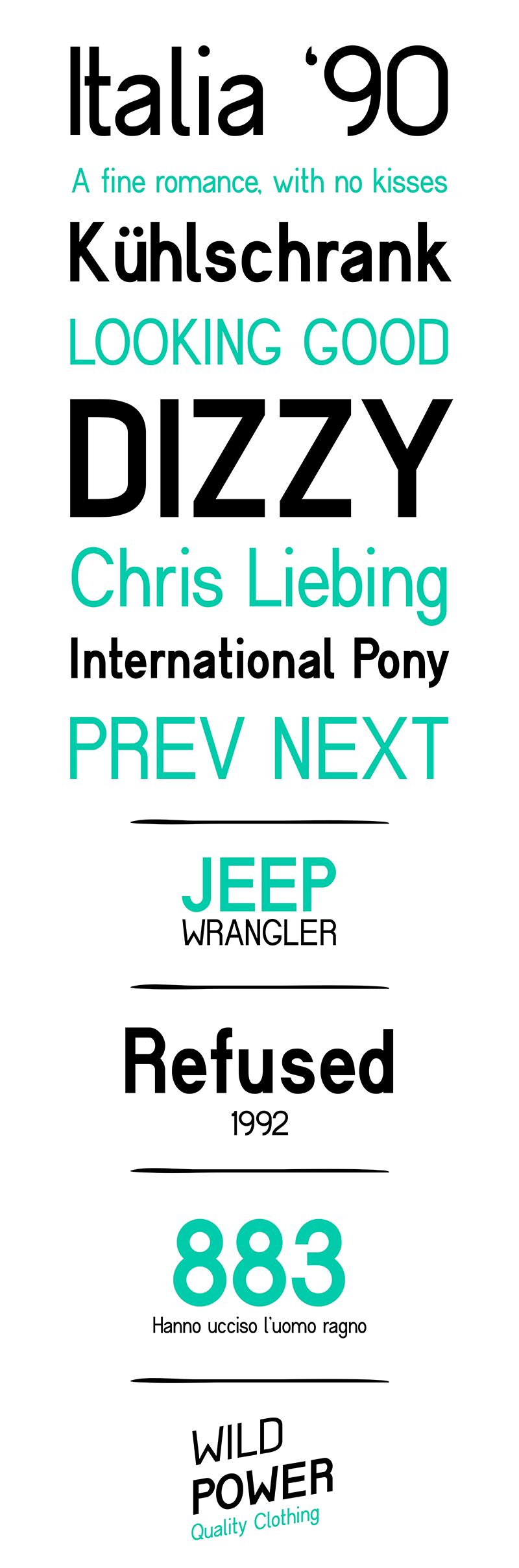
Cerbetica Bold by Andrea Cerboneschi for monocromo is a free geometric sans serif with broad capitals and a firm, compact silhouette. Its strokes are nearly uniform, with clean vertical cuts and generous round forms. The lowercase is notably tall and direct.
Its sturdy shapes suit both cultural posters and practical wayfinding, bringing the same crisp authority to expressive and functional settings. Packaging and sports merchandise can use its dense lettering for confident names and emblems. Across these applications, the consistent weight and plain geometry create a clear, contemporary voice.
Cerbetica is a geometric sans-serif font designed after Helvetica. Its design is based on geometric strokes.